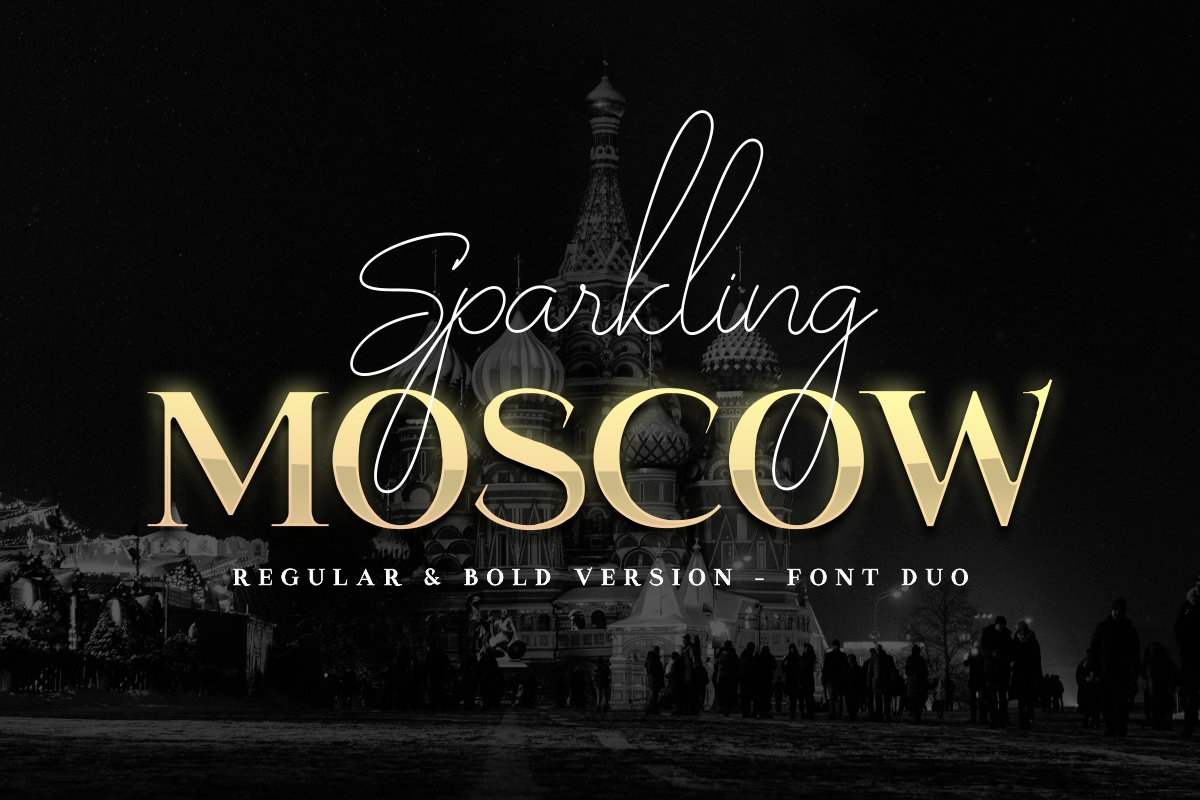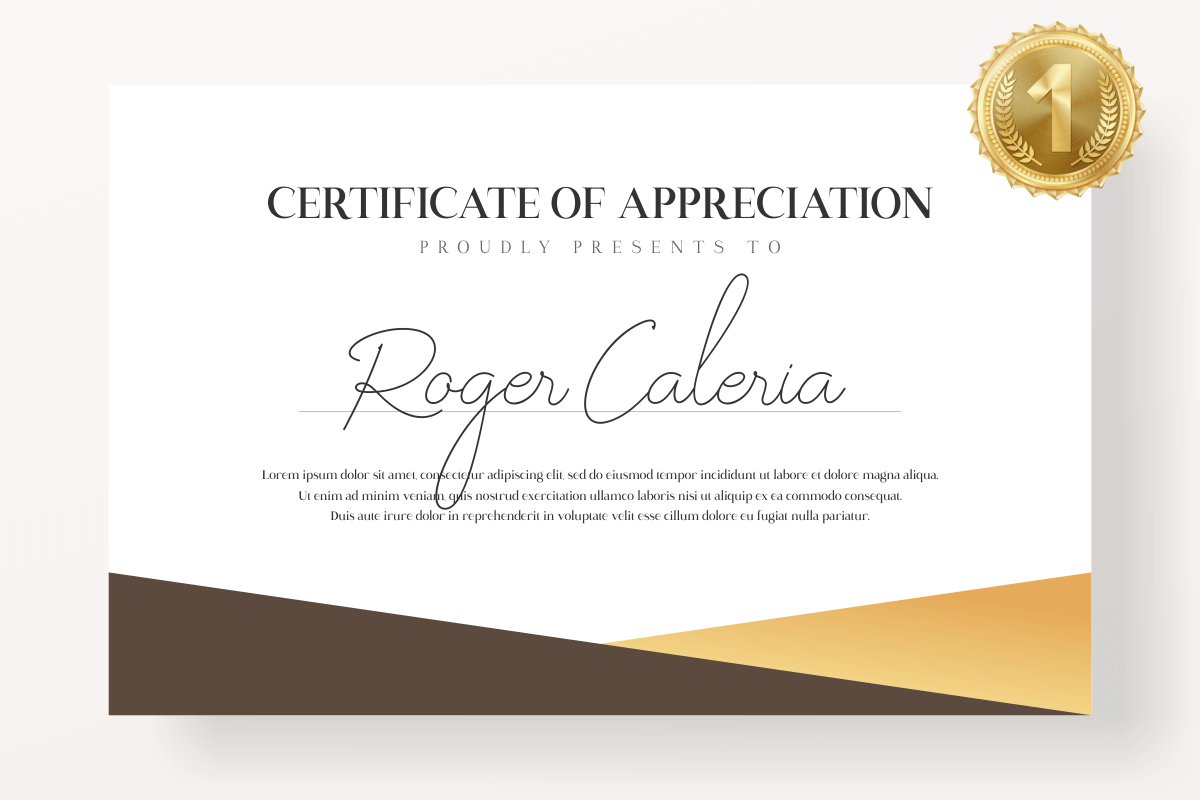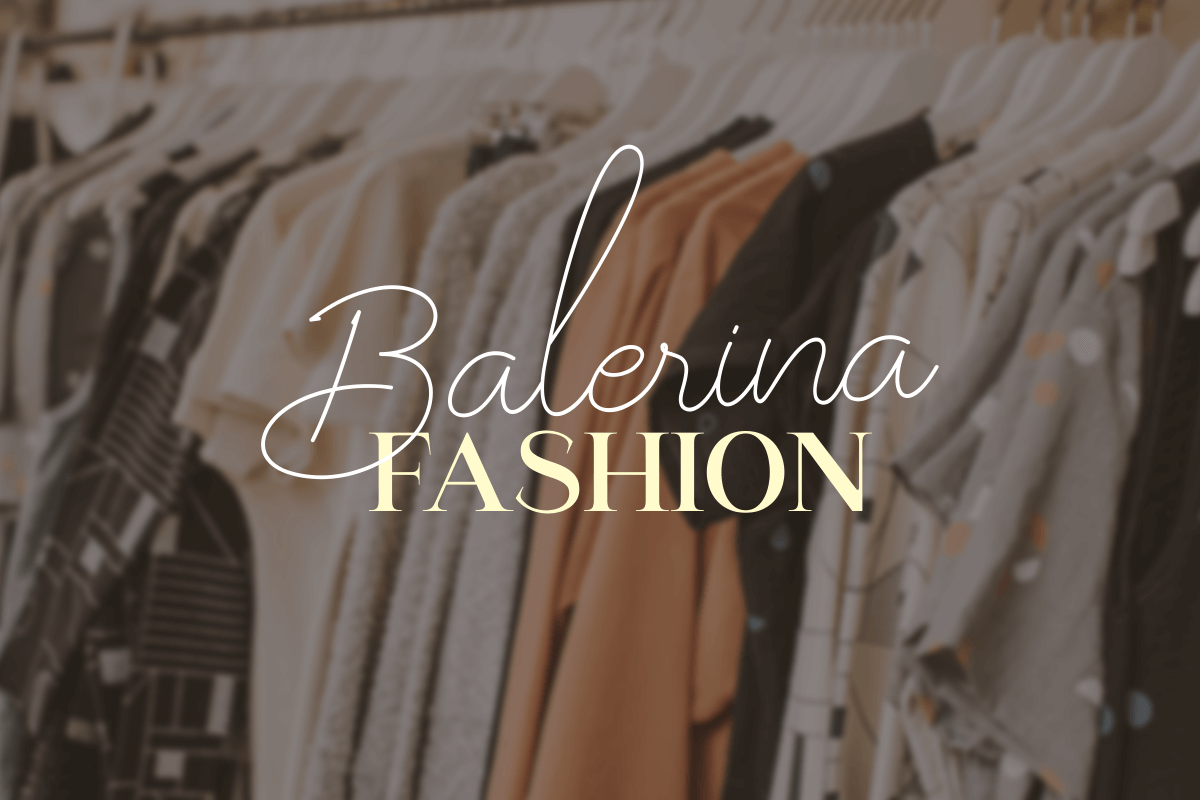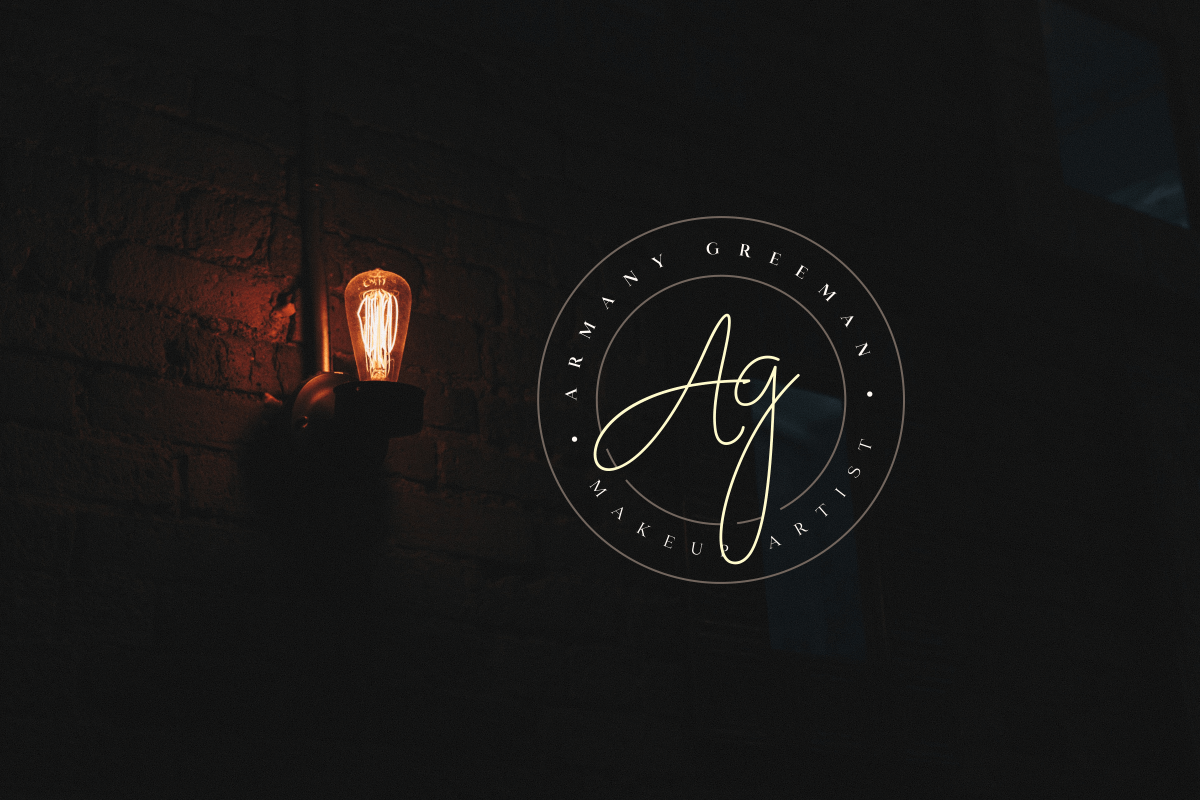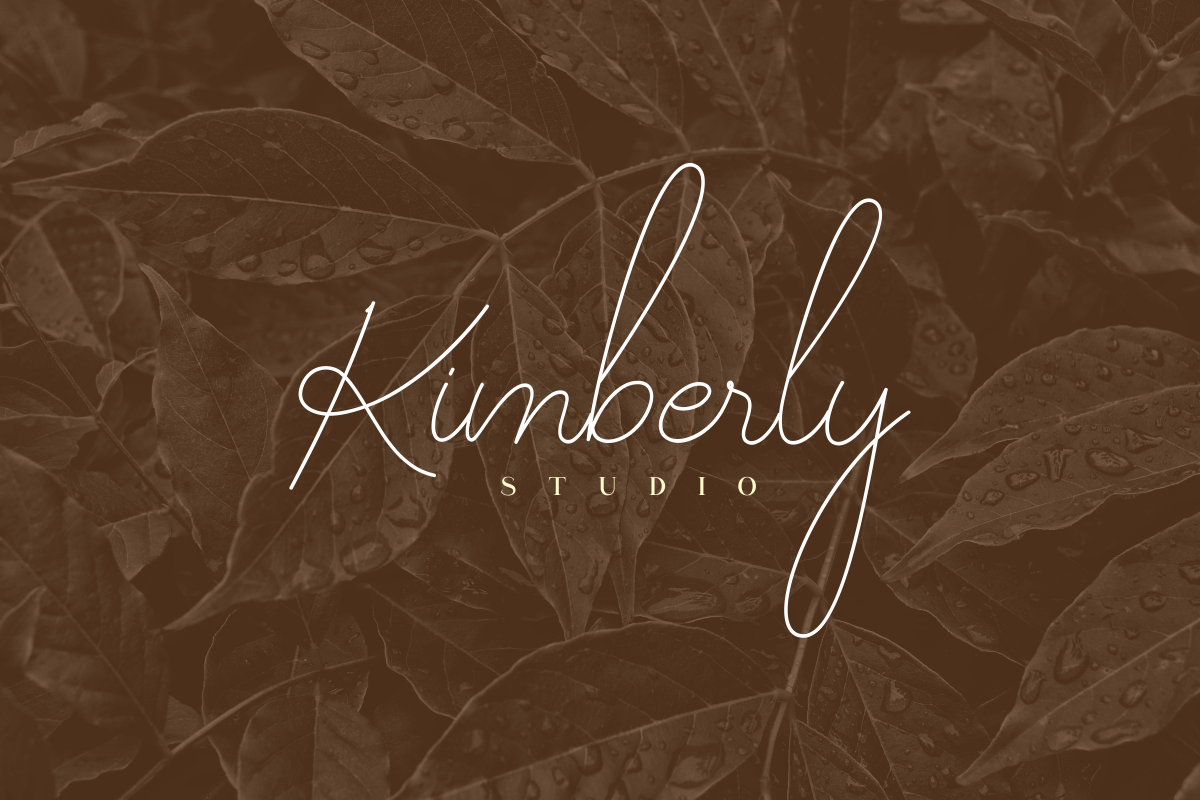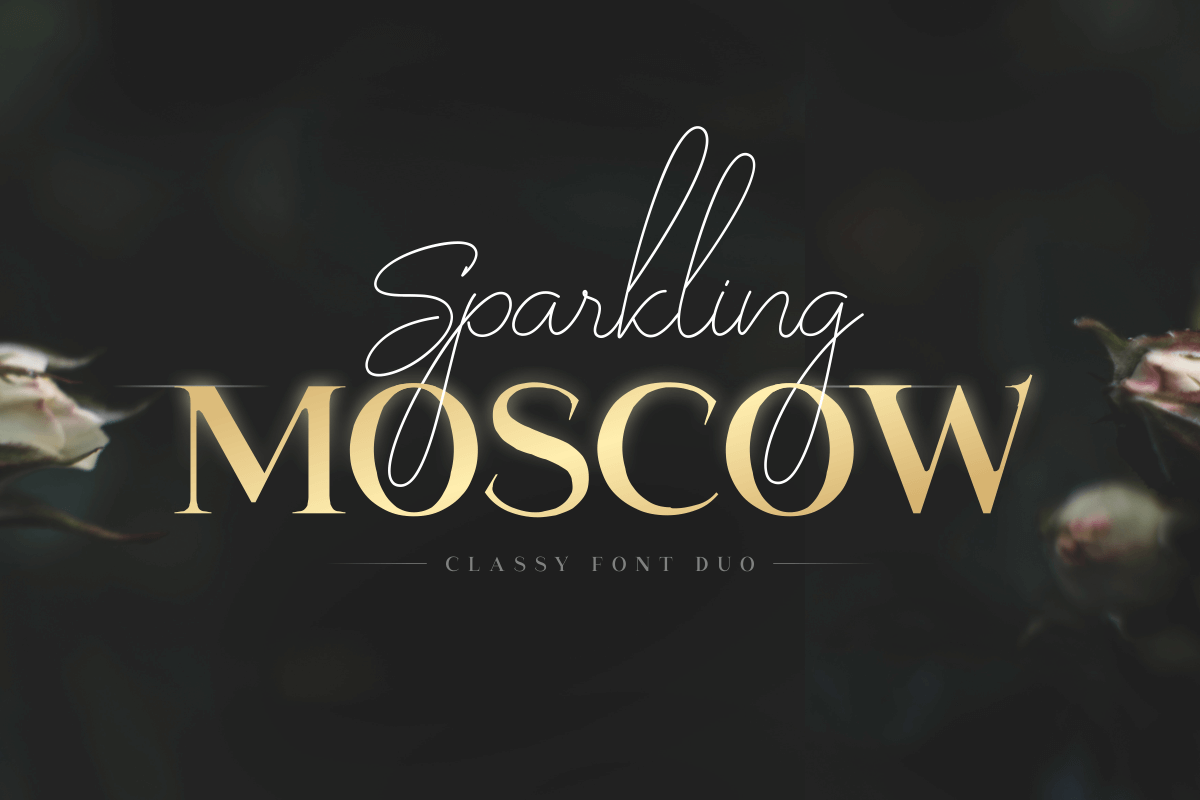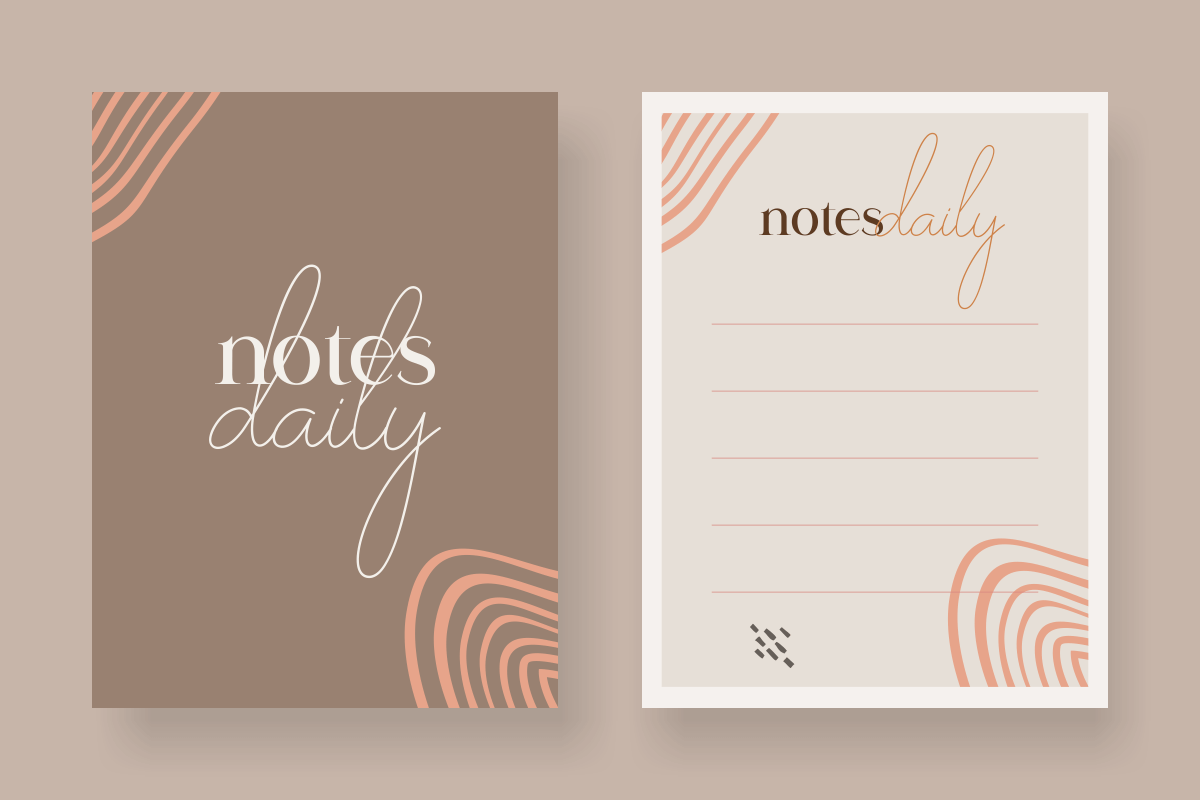
Sparkling Moscow - Font Duo
Sparkling Moscow is a classy font duo best for a brand, sign, and any purpose design.
Based on our experience as a graphic designer who works for a lot of companies, we often are requested to create a classy design. So, here we try to brainstorming and create this font duo to make the idea is going out. This is perfect for BRANDING and ANY PURPOSE DESIGN. You will get classy, elegant, and certainly unique font.
Sparkling Moscow is also included full set of:
uppercase and lowercase letters
numerals
punctuation
sparkling moscow regular
sparkling moscow bold
sparkling moscow script